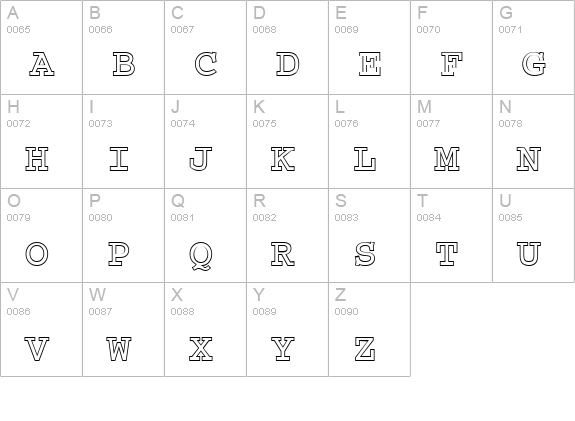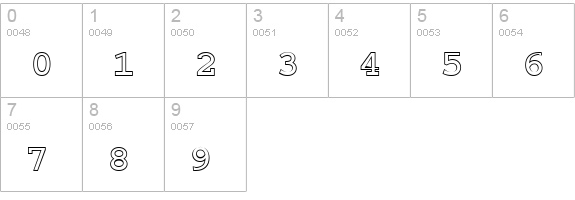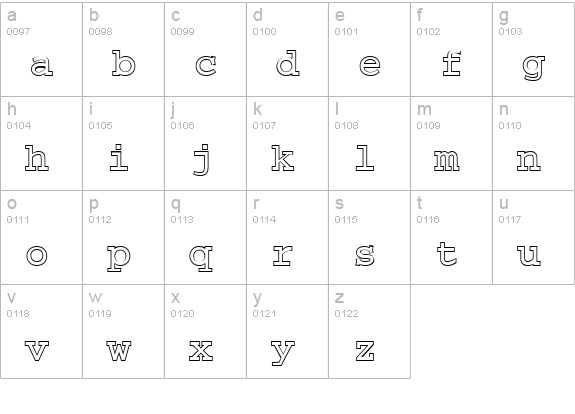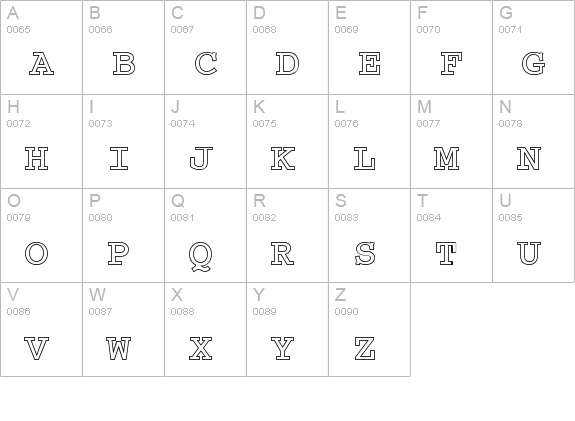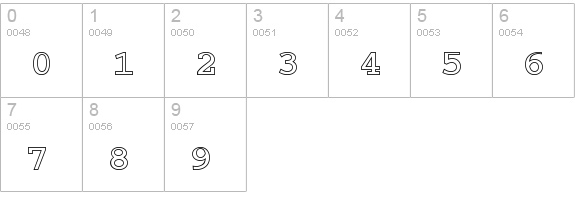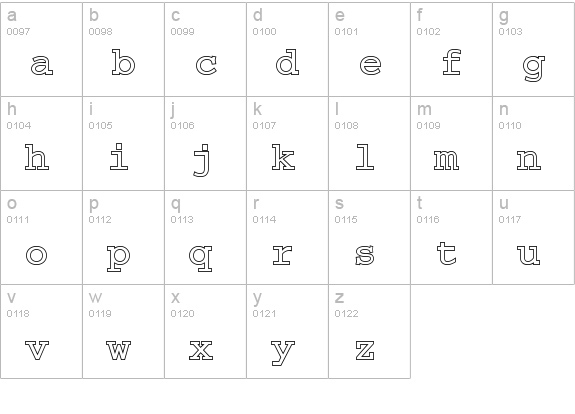
CountdownOpen Font Details
CountdownOpen font is a modern and sleek typeface that adds a touch of sophistication to any design project. With its clean lines and geometric shapes, this font is perfect for creating a contemporary look. Whether you're working on a logo, website, or print materials, CountdownOpen font will help your text stand out with its unique style. What's even better is that CountdownOpen font is completely free to download at FontsMarket.com. So you can easily access this stylish font without any cost, making it a great choice for designers on a budget. Don't miss out on the opportunity to enhance your projects with the CountdownOpen font - download it today and elevate your designs to the next level!